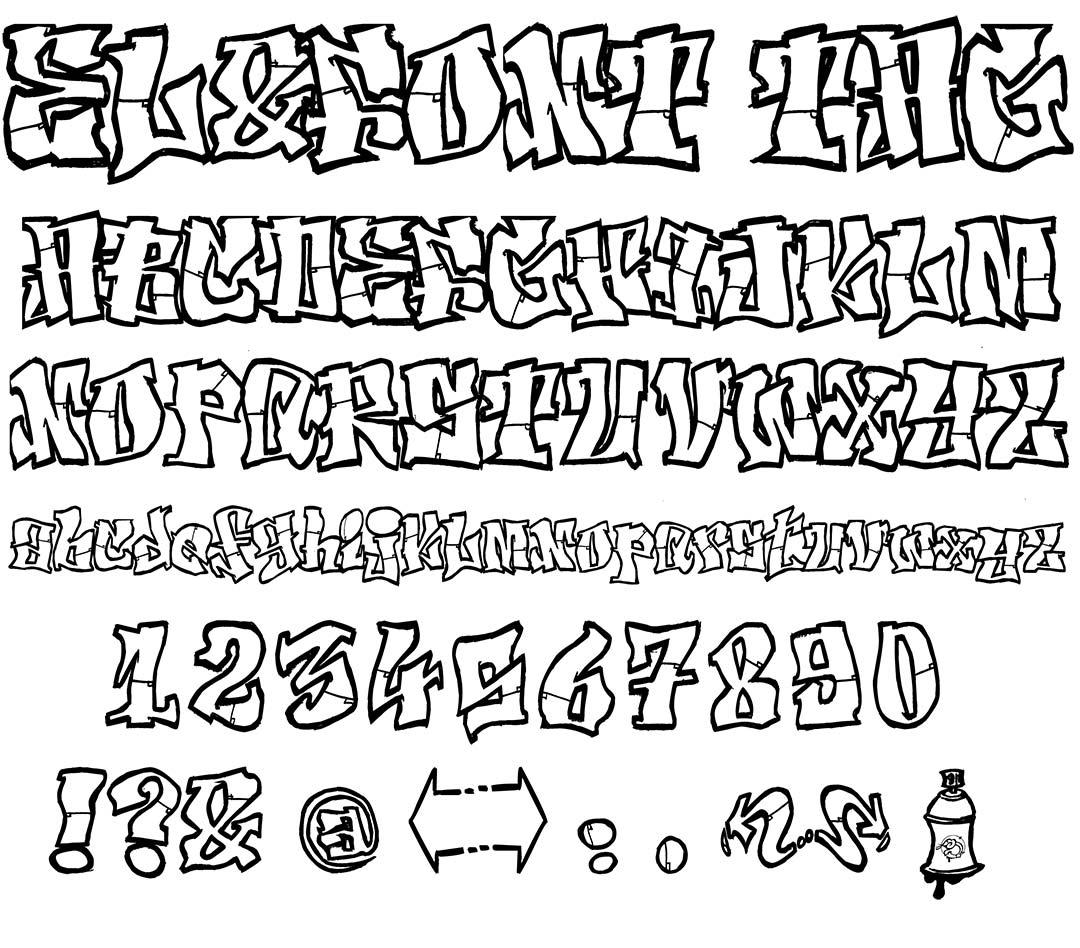
El & Font Tag
El & Font Tag Graffiti Alphabet
El & Font Tag Graffiti Font Family
El & Font Tag is actually not a tag style at all. This outline style more similar to a throwie or a stamp. This font includes full uppercase & lowercase alphabets included in a thick outline style with a rough natural look.